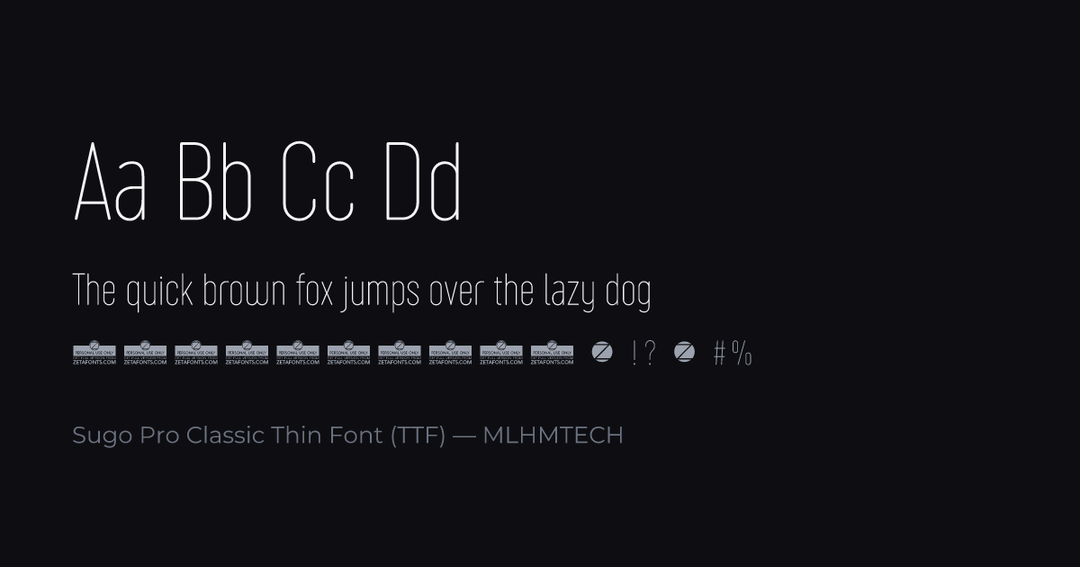
Sugo Pro Classic Thin Font (TTF)
A sleek, thin sans-serif font ideal for modern titles and clean layouts. Includes TTF file for easy installation.
Sugo Pro Classic Thin is a refined sans-serif typeface with a light, airy weight that adds sophistication to any project. Its clean lines and subtle curves make it perfect for minimalist designs, elegant titles, and professional branding.